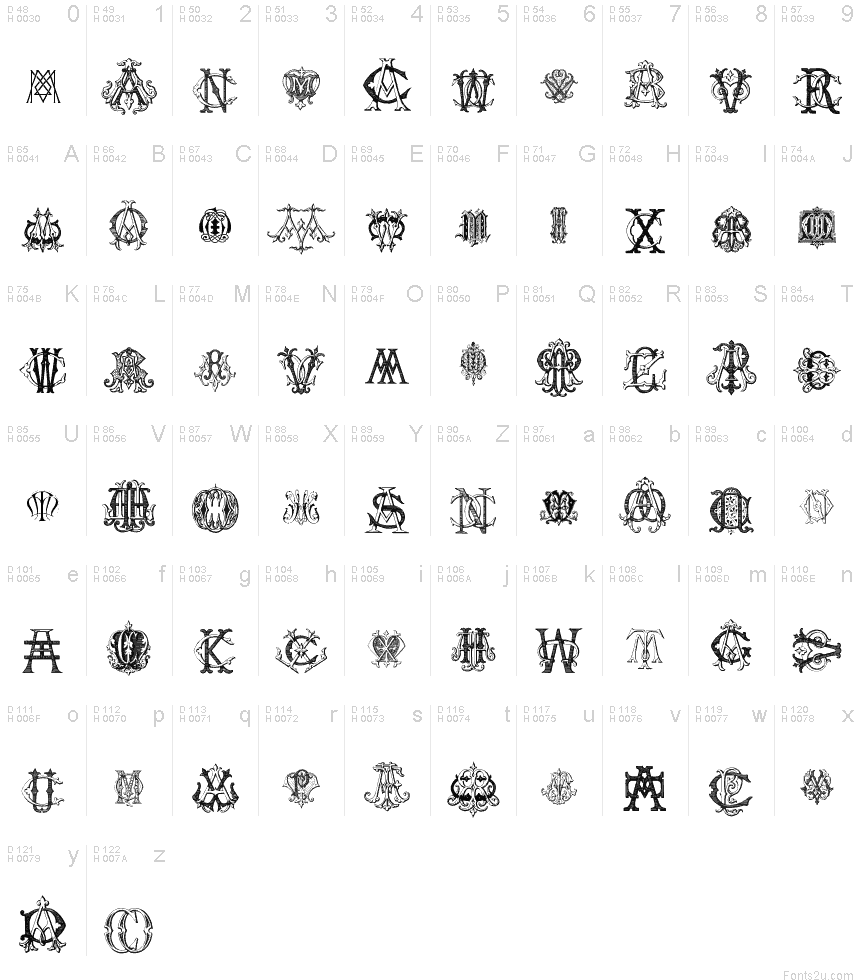
Intellecta Monograms Random Samples Five by Paulo W. is a free monogram dingbat font drawn from an assortment of ornate initials. Each emblem combines interlaced letterforms, engraved shading, and curling flourishes, with designs ranging from restrained circular marks to dense Gothic arrangements.
Heritage brands can use elaborate crests on packaging, labels, and merchandise. Their varied frames suit invitations and historical publishing, turning each mark into a small illustration. Its strongest role is an individual emblem rather than continuous text.
Intellecta Monograms Random Samples Five, by Intellecta Design, is a random, limited set from Intellecta Monograms, a collection of thousands of intricate monograms, mainly in the Victorian style.